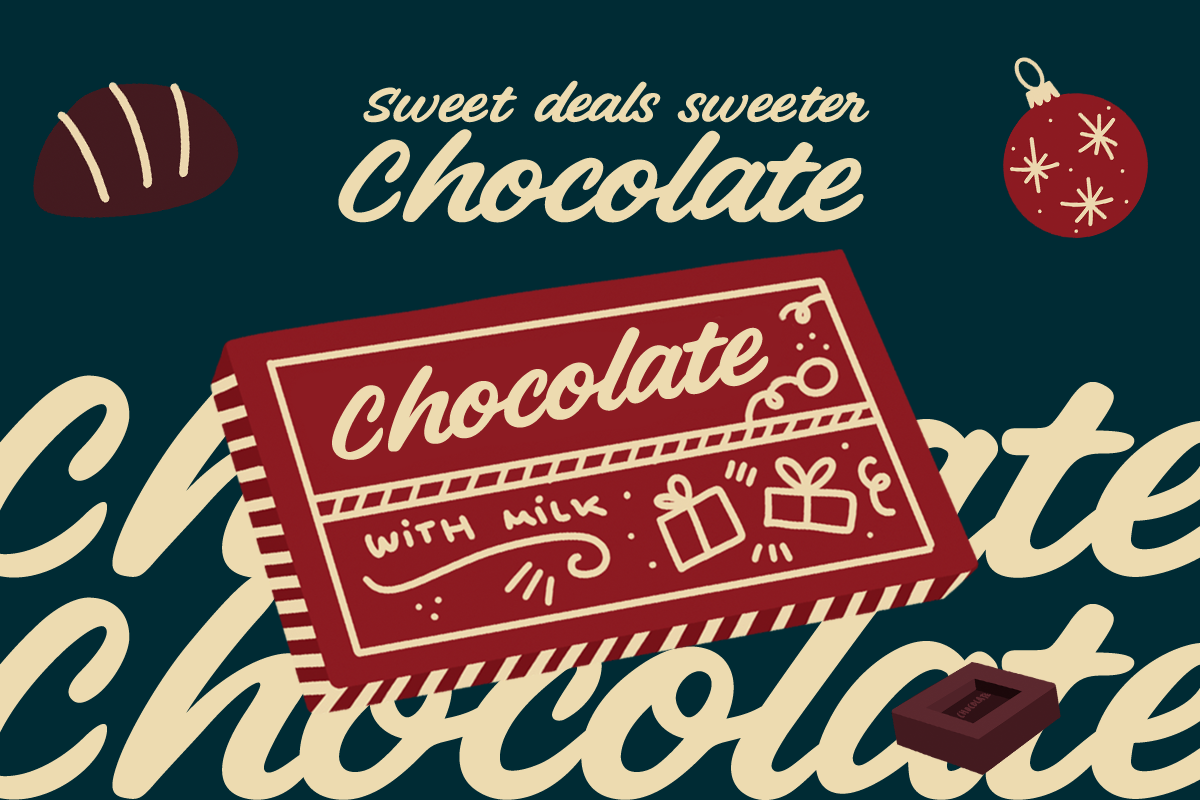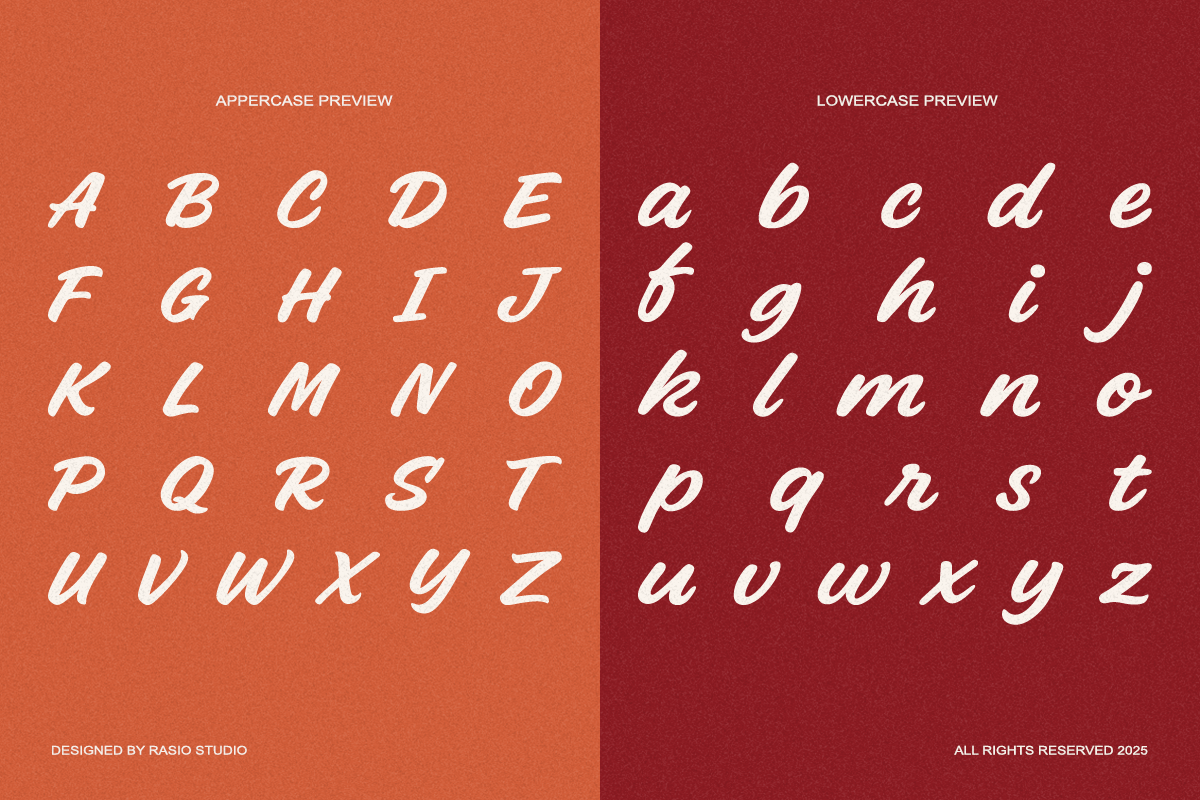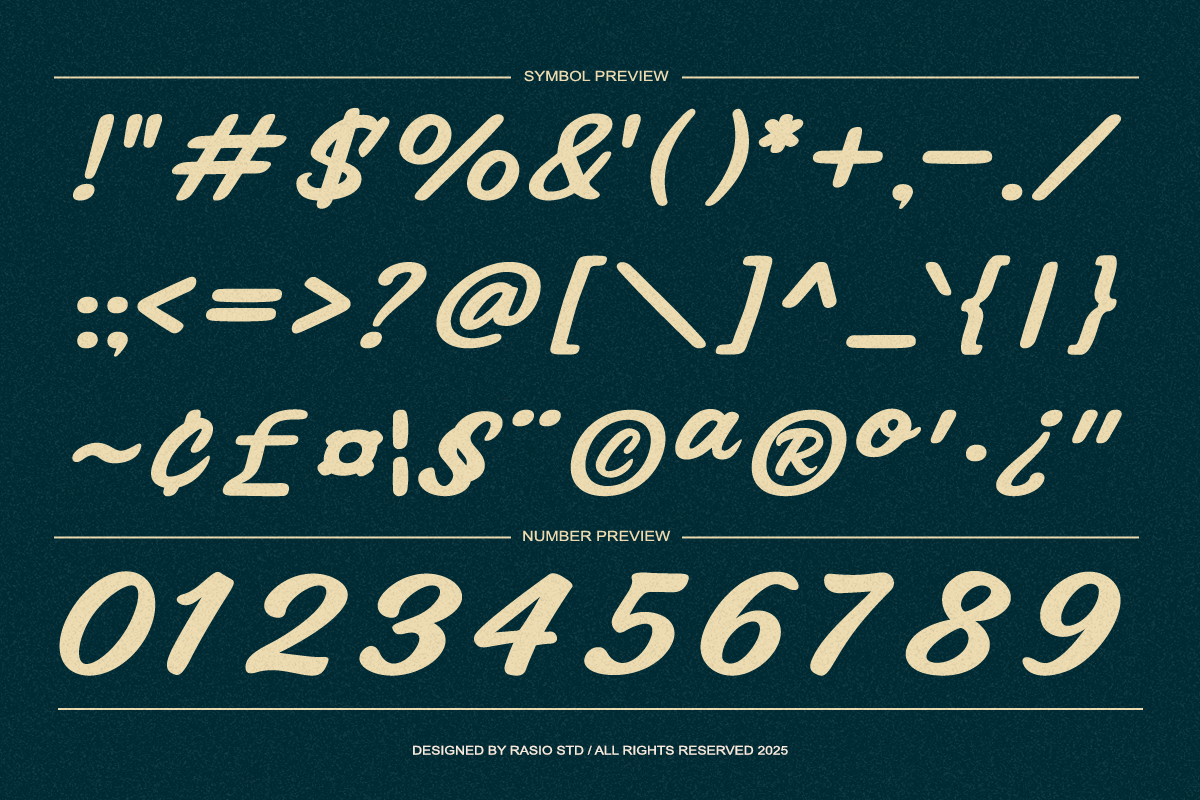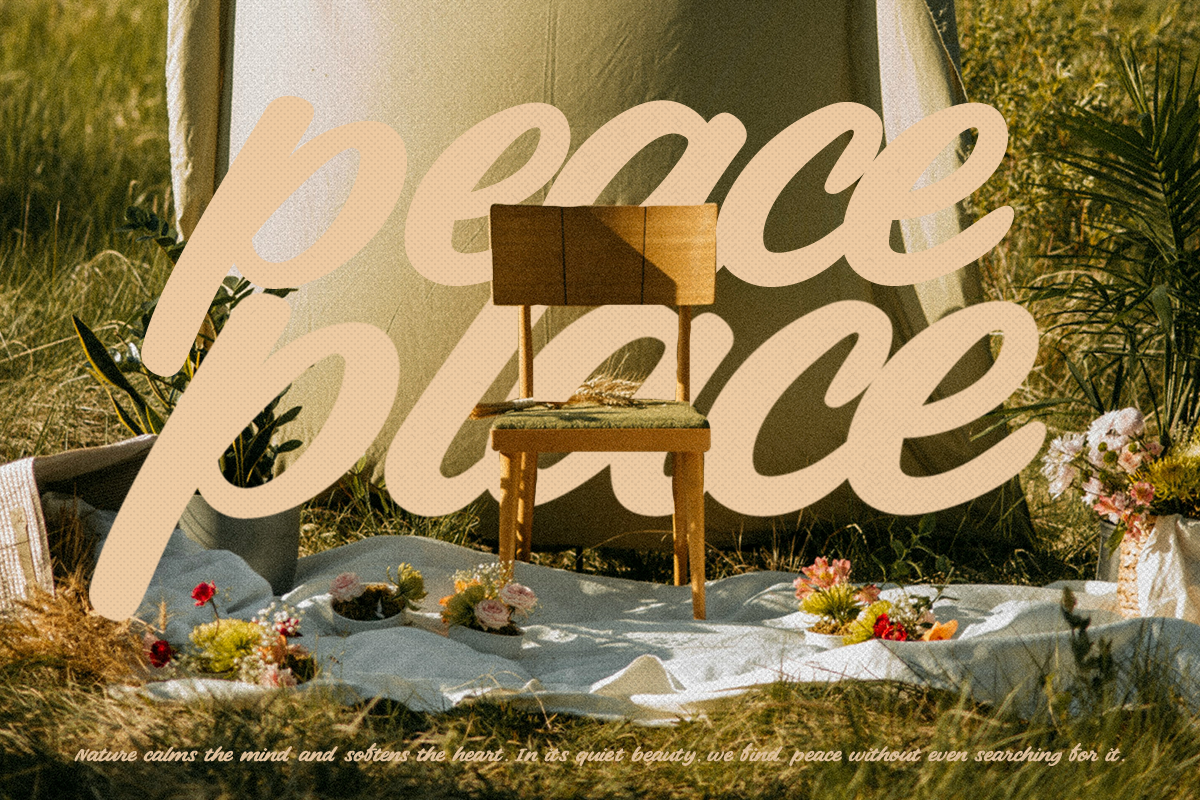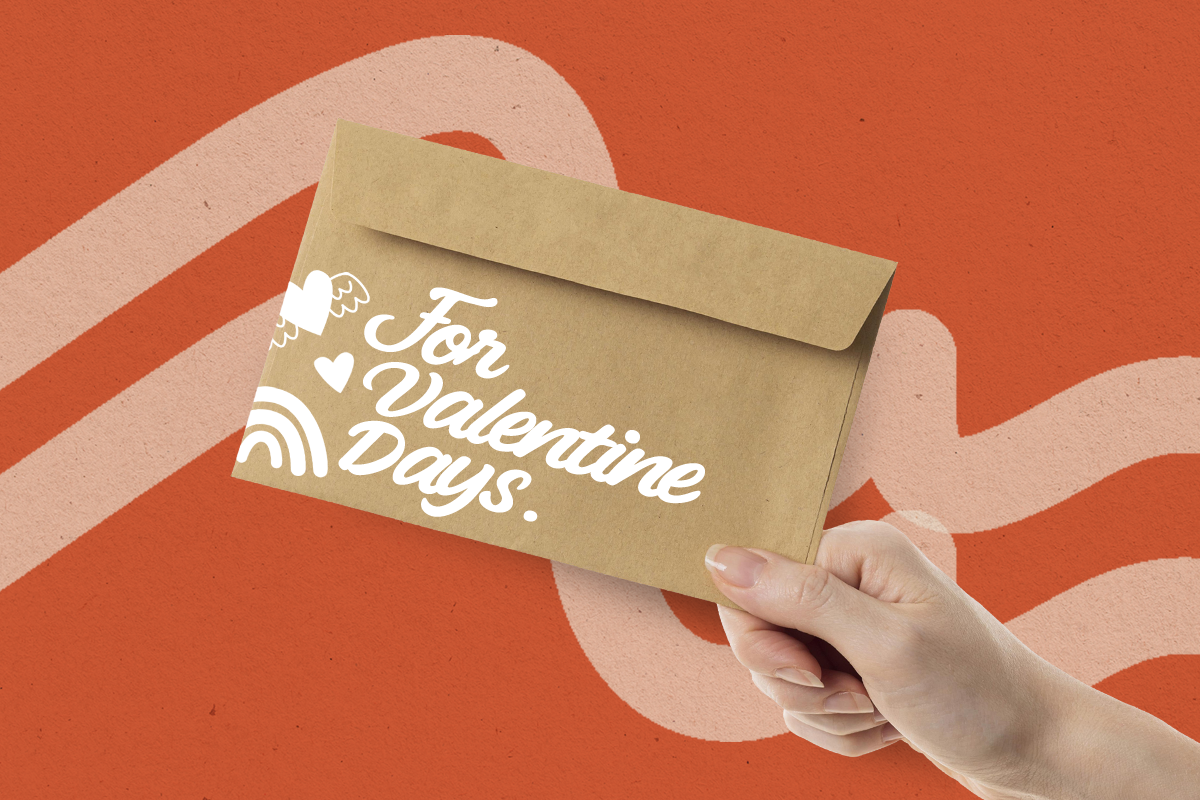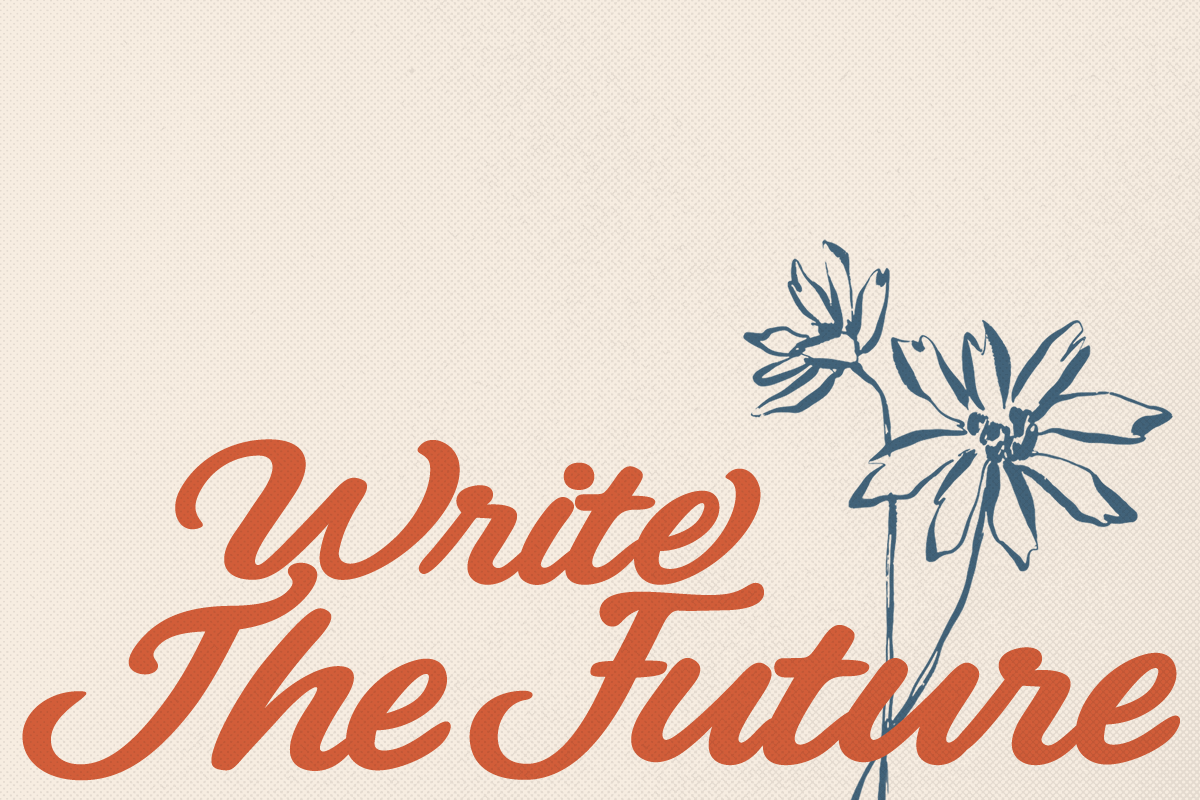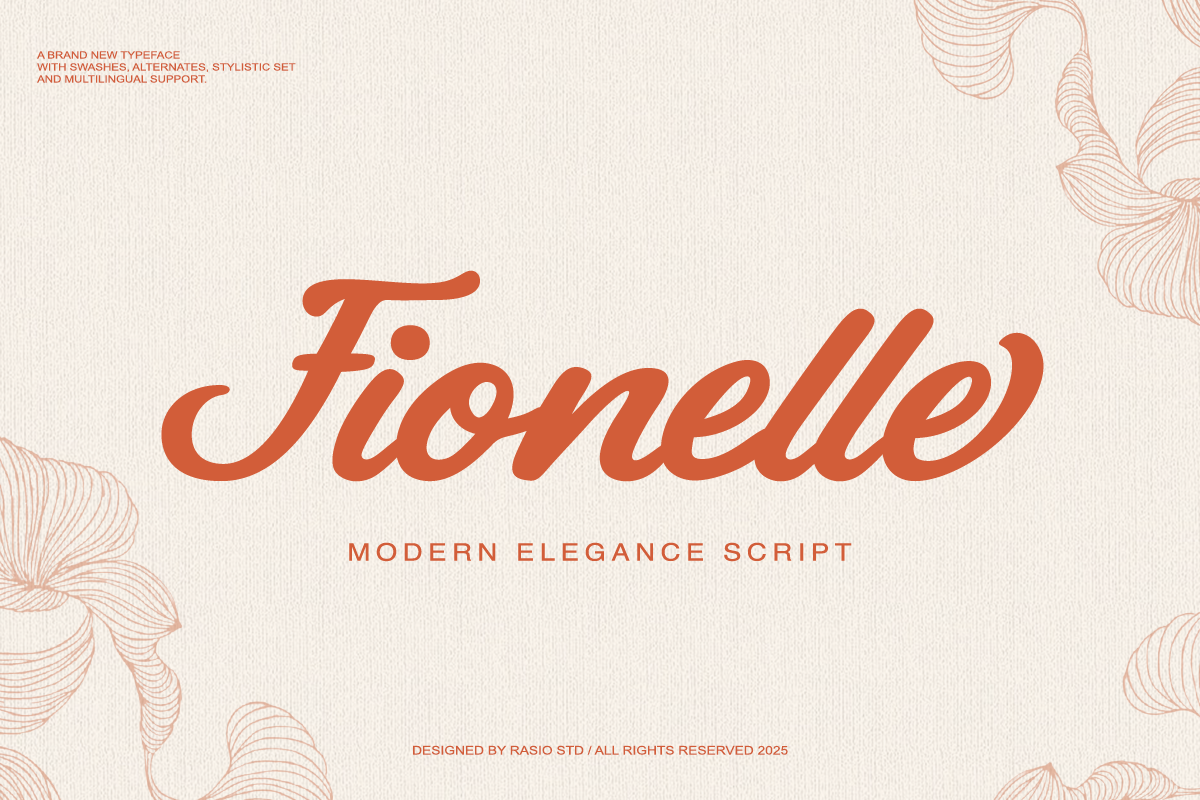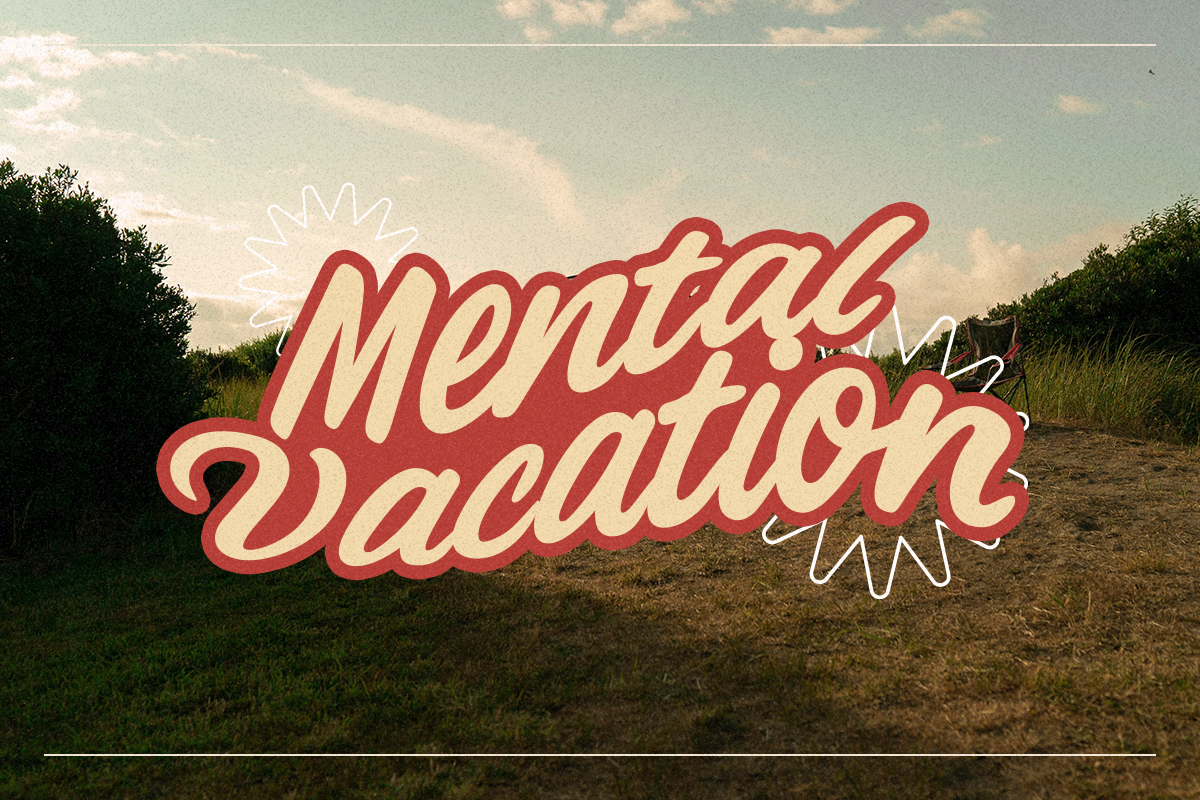
Fionelle Modern Elegance Script Font
Fionelle is a refined modern script typeface that blends graceful curves with confident stroke flow. Designed with smooth connections and natural handwritten movement, this font delivers a sophisticated yet approachable personality. The typeface includes uppercase and lowercase characters, numerals, punctuation, and symbol sets as shown in the preview. Carefully balanced stroke contrast enhances readability while maintaining its elegant script charm.
Fionelle is highly suitable for luxury branding, wedding invitations, beauty and fashion packaging, boutique logos, social media content, editorial headlines, and high-end marketing materials. Its flowing strokes and stylish swashes make it ideal for projects that demand elegance, warmth, and refined personality. Whether for personal creative work or commercial branding campaigns, this font elevates visual storytelling with a graceful touch.
- Flowing modern script design with graceful handwritten movement
- Smooth connecting strokes that create natural rhythm and harmony
- Elegant swashes and soft curves for a refined feminine touch
- Balanced stroke contrast for stylish yet readable letterforms
- Carefully crafted spacing to ensure clarity in both short phrases and headline compositions
- Luxury brand identity systems seeking an elegant and feminine touch
- Wedding invitations, save-the-date cards, and romantic stationery
- Beauty, fashion, and boutique logo design
- Product packaging for cosmetics, perfume, and handcrafted goods
- Social media branding, quotes, and stylish promotional graphics